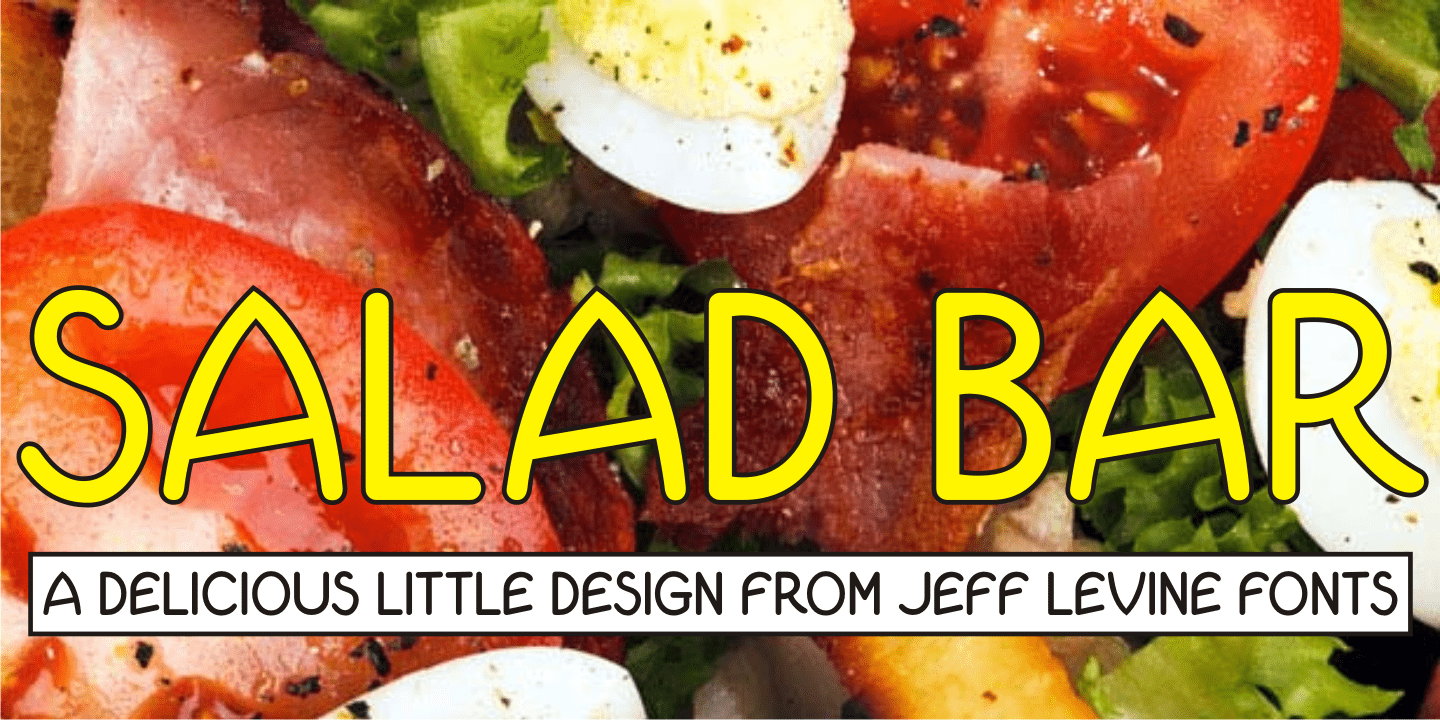
Salad Bar
Hand-cut wooden letters belonging to a long-defunct salad bar's signage were offered for sale in an online auction. The casual look of the lettering, the hand crafted feel and the rounded ends made for the perfect inspiration for designing Salad Bar JNL.